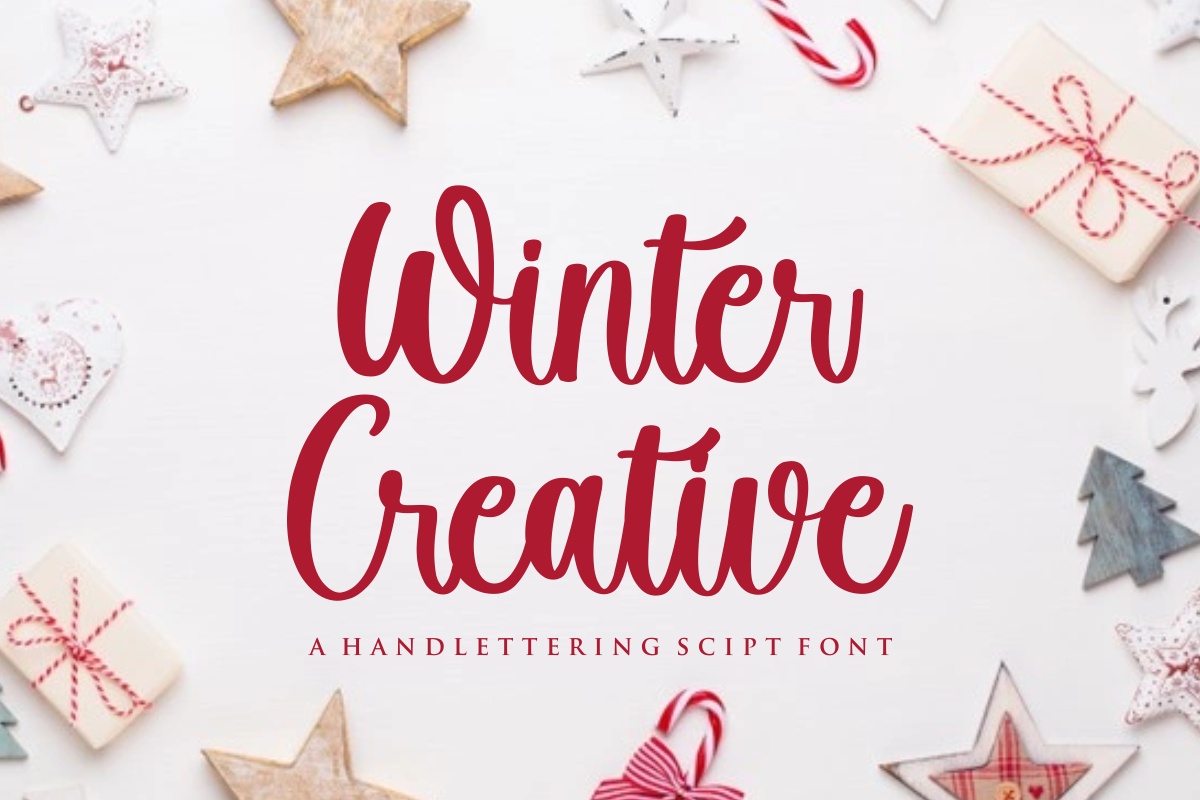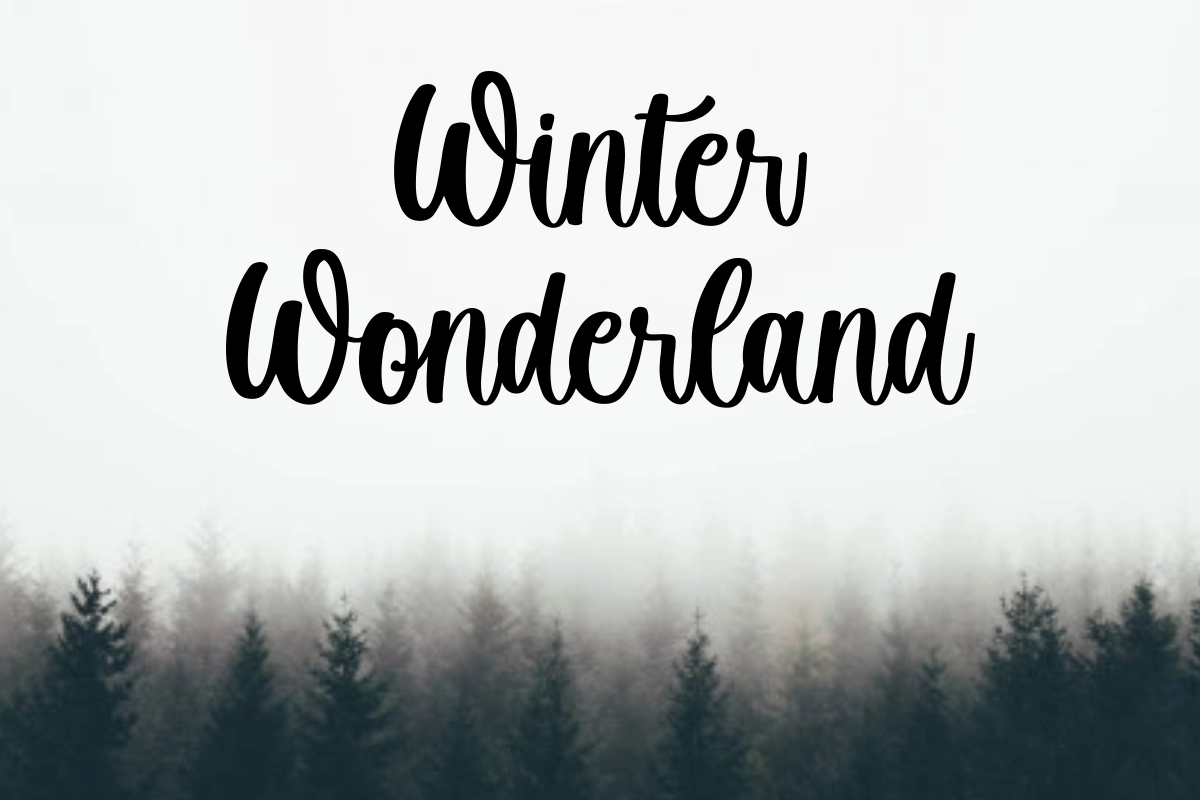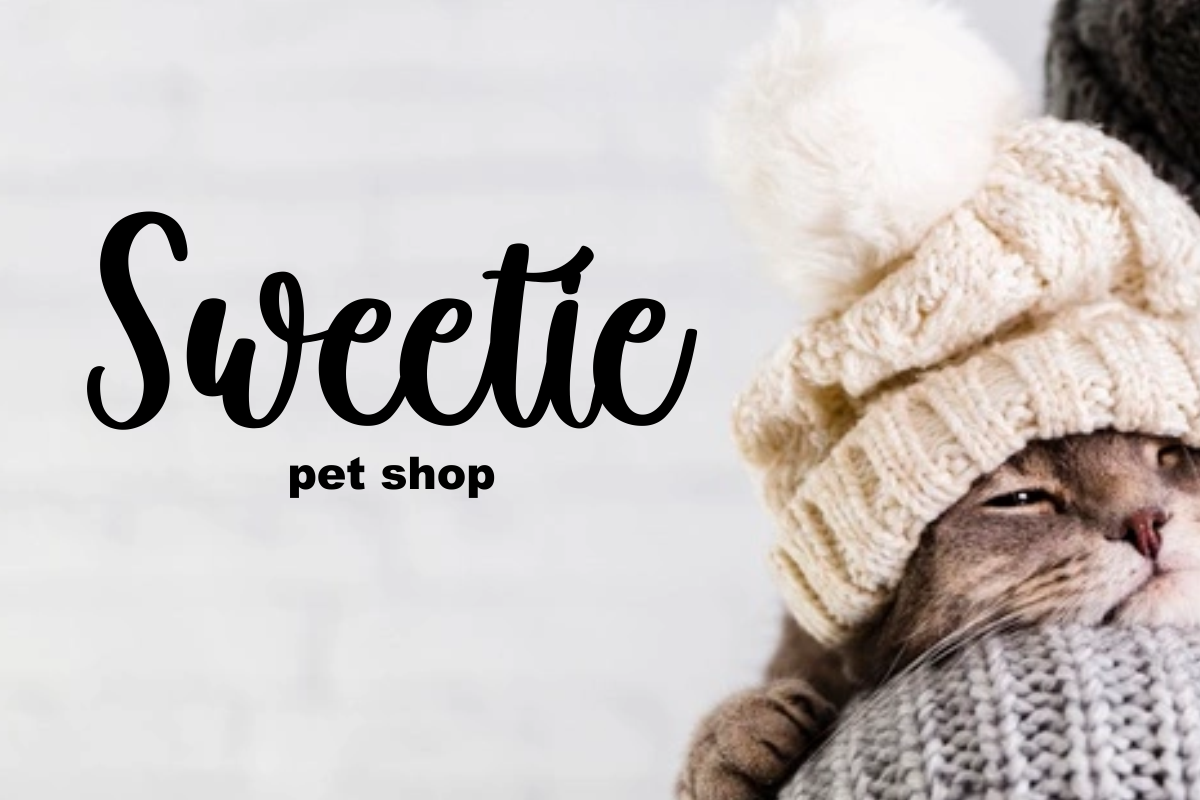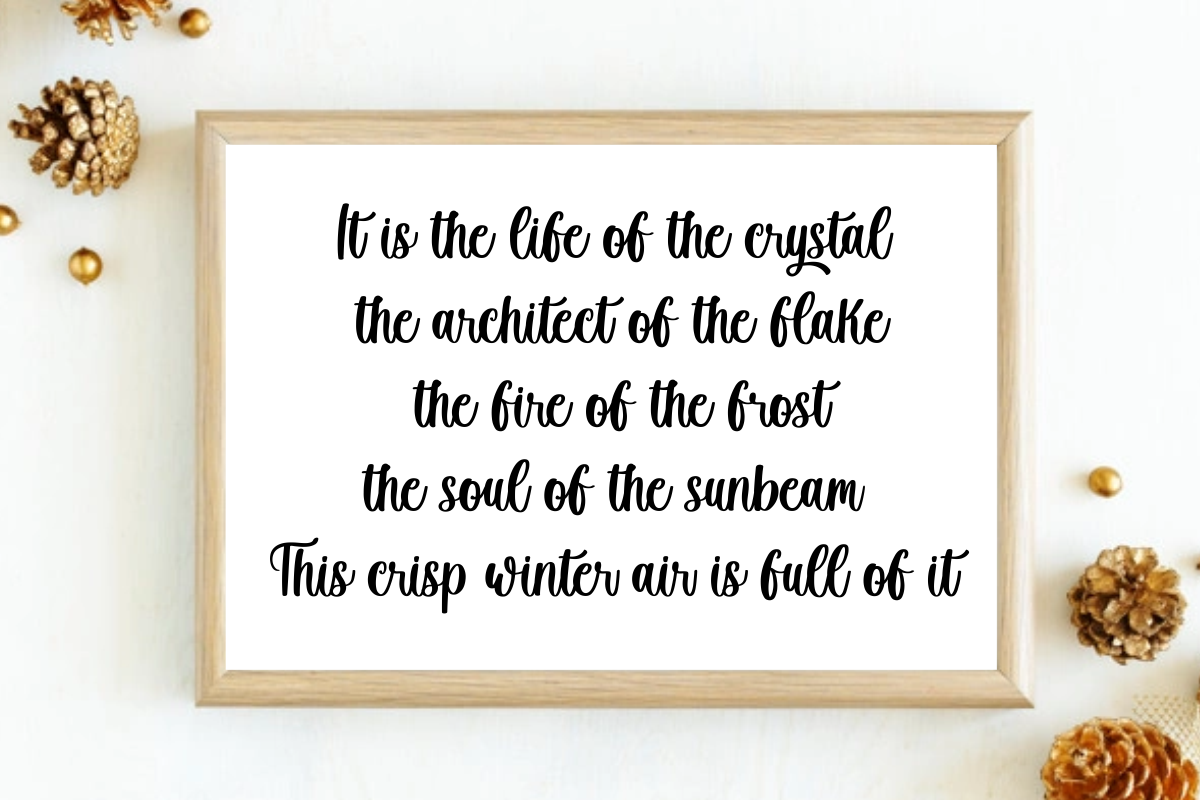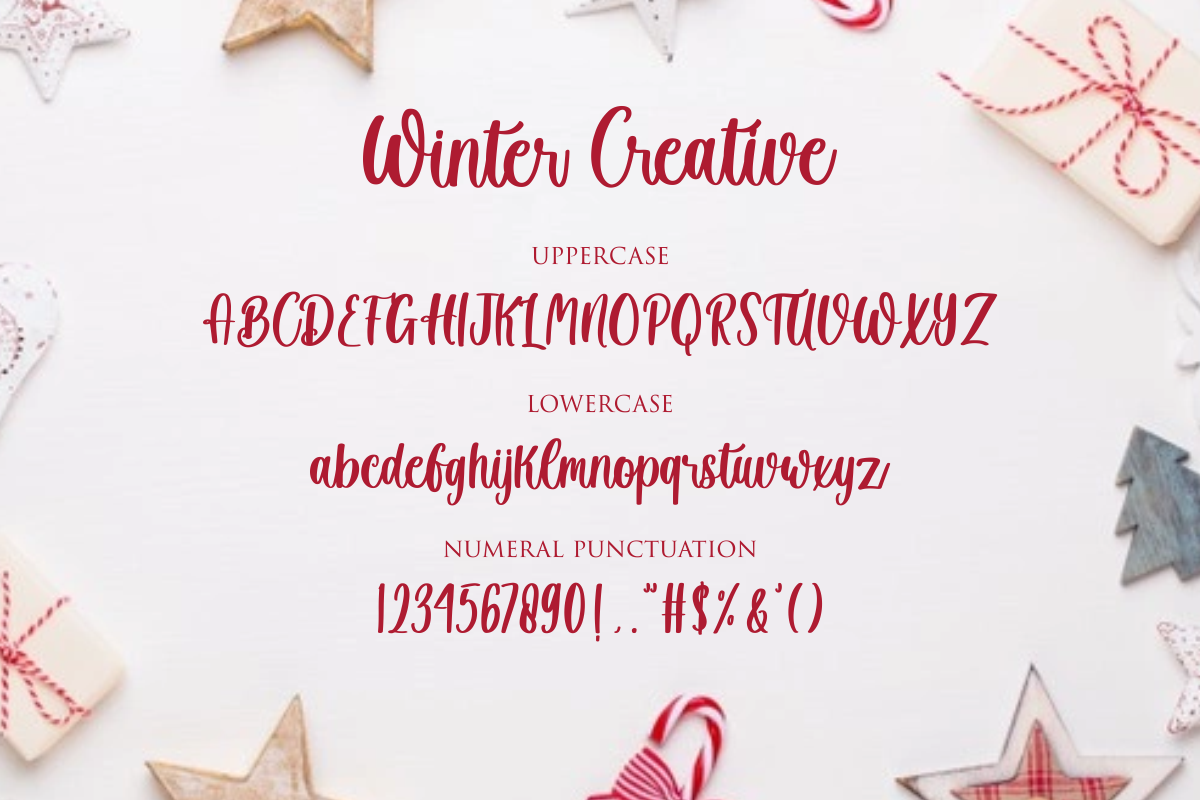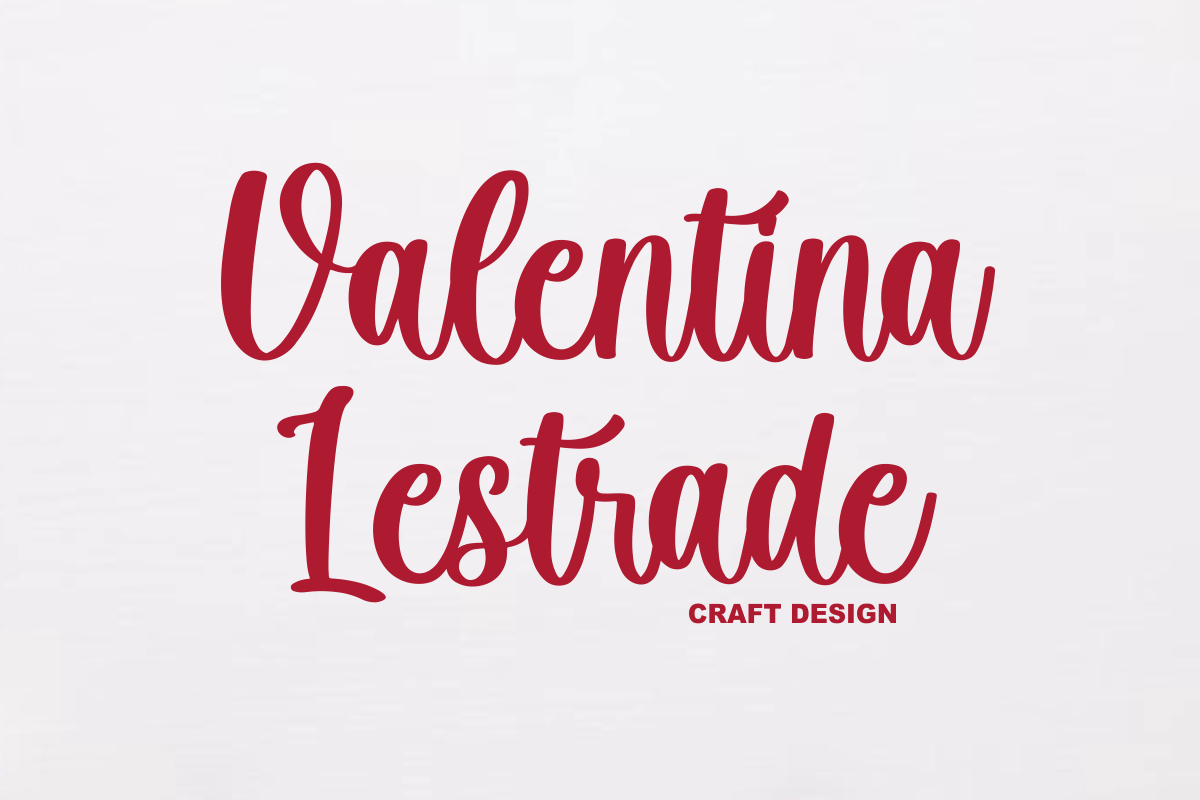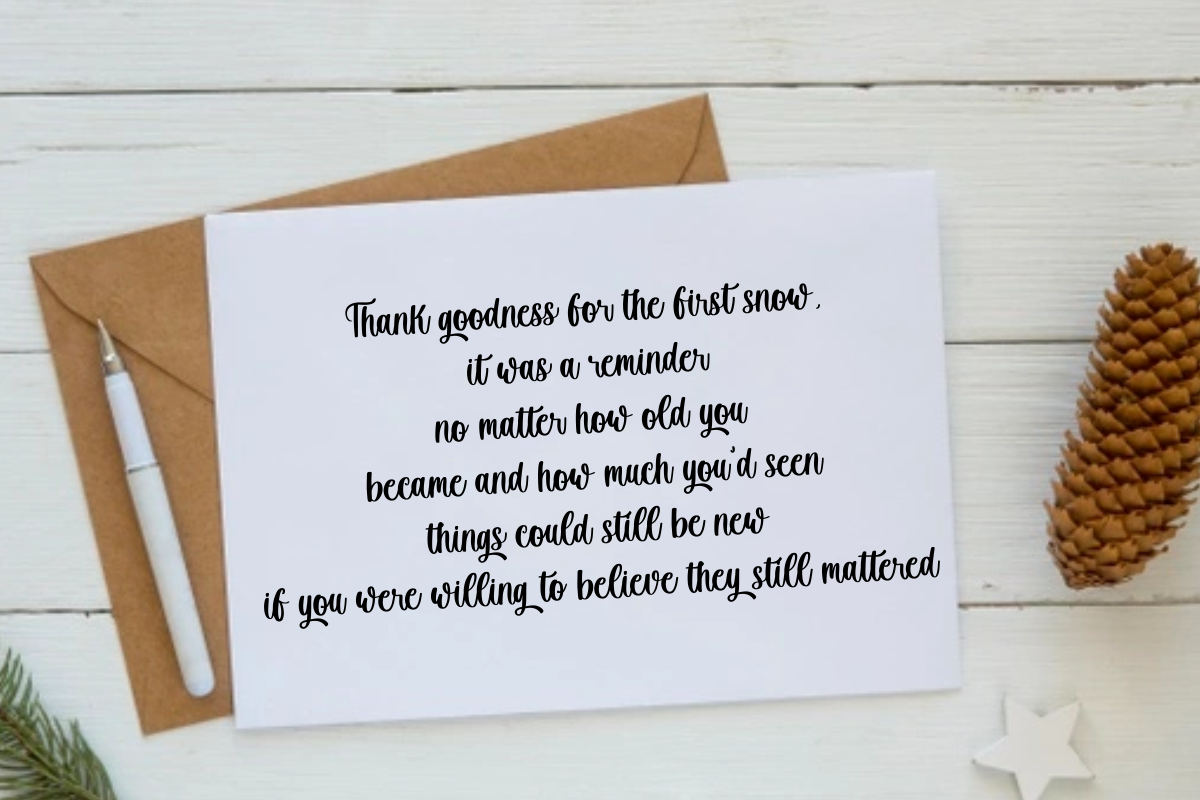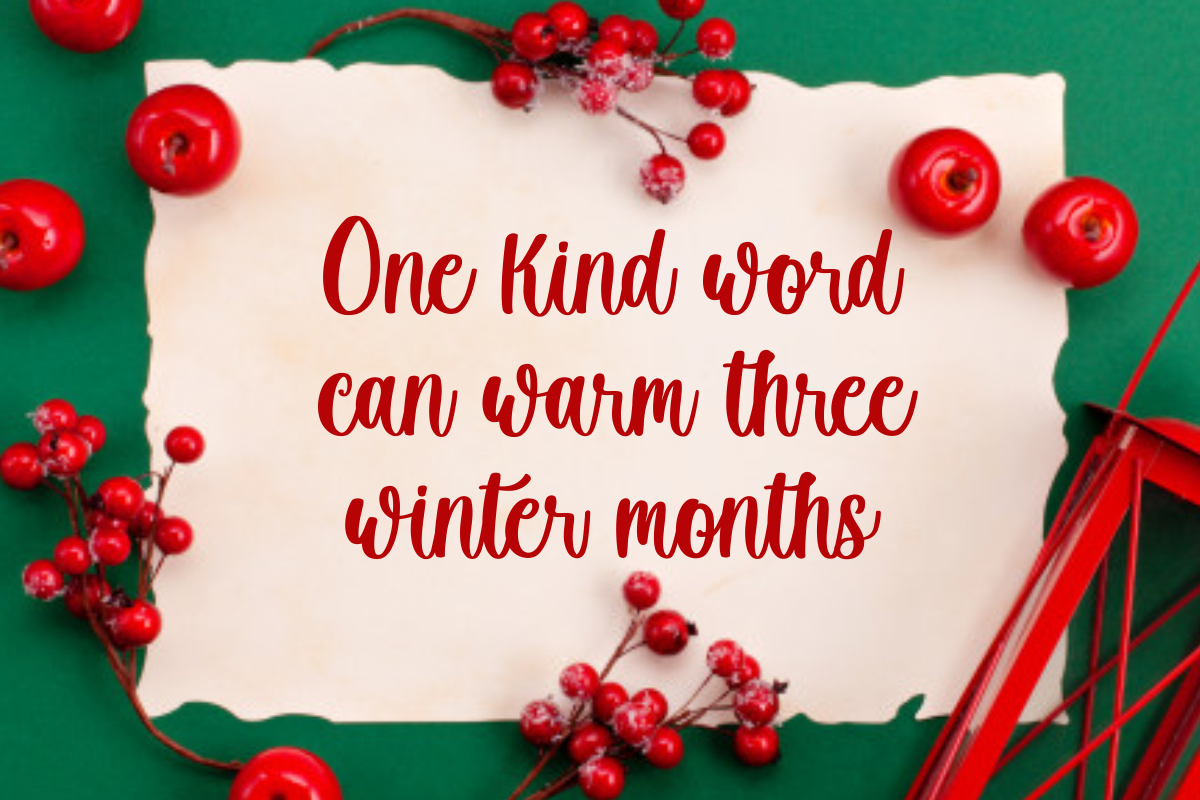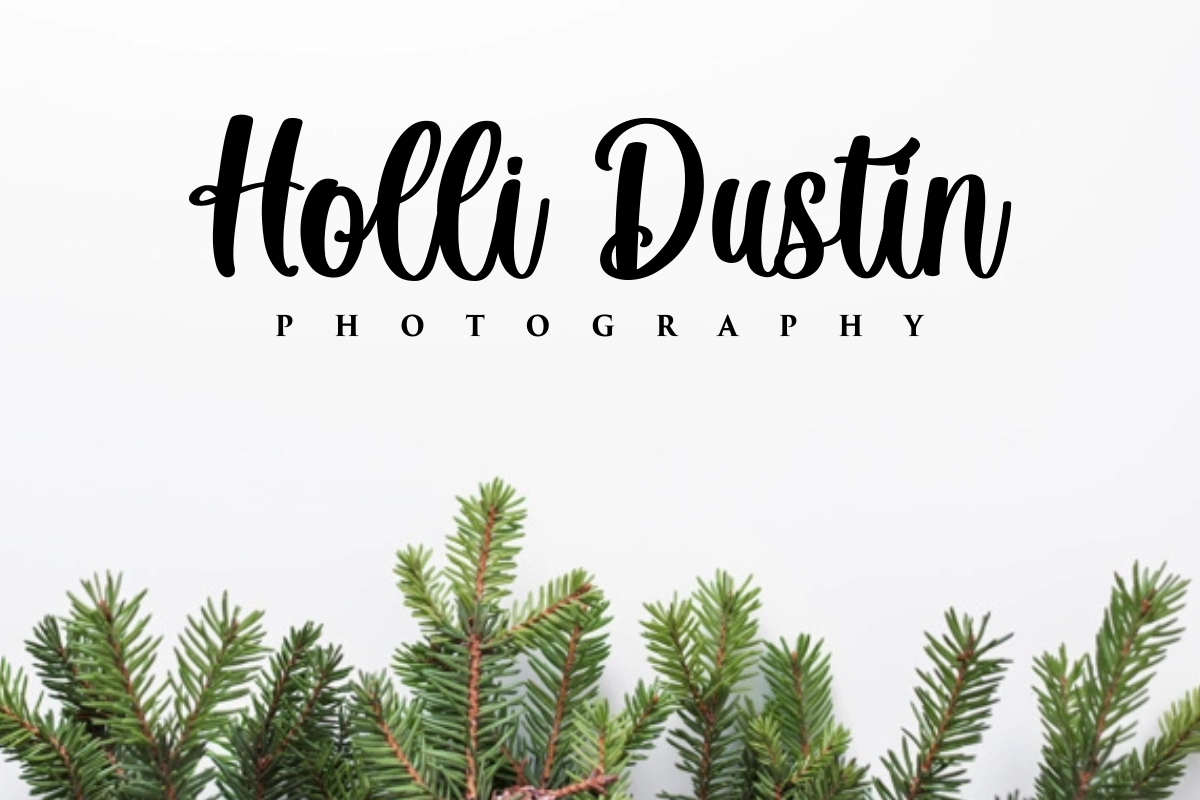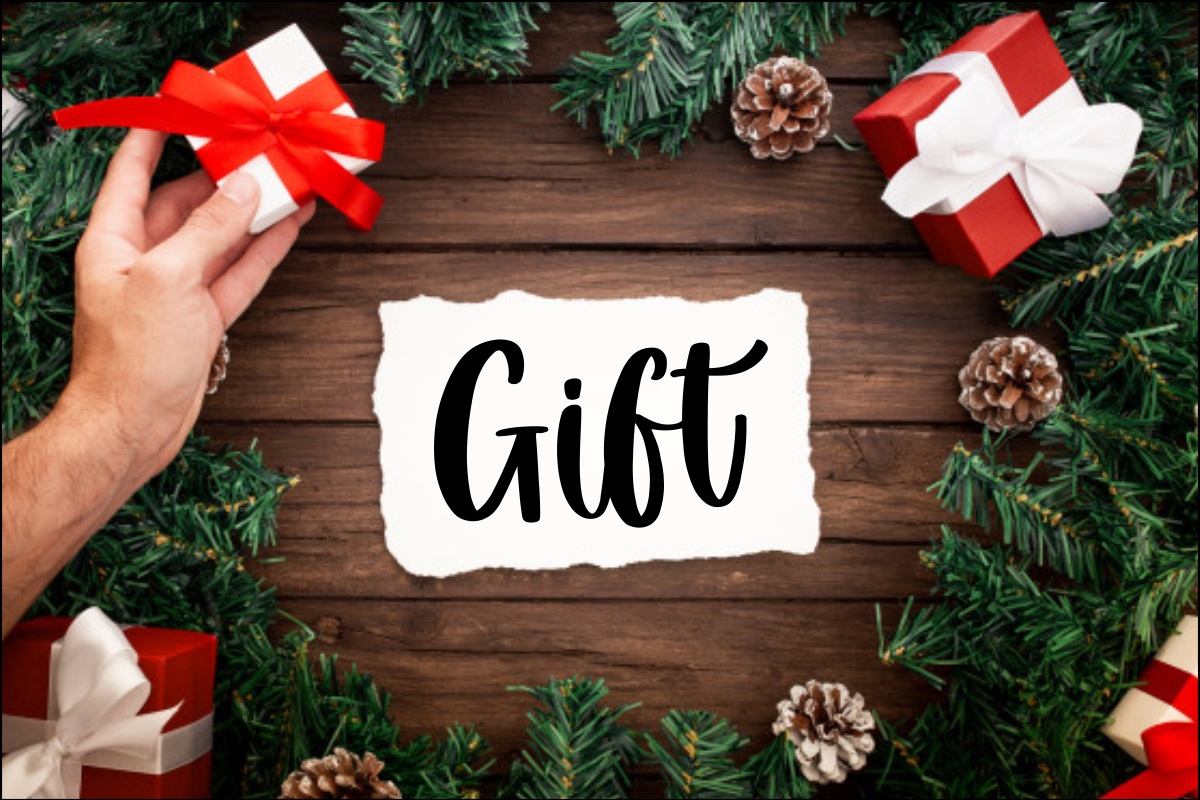
Winter Creative – Script Font
Winter Creative – Font is a new stylish script font. It’s perfect for logo, branding, title, social media posts, advertisements, product packaging, product designs, label, photography, watermark, special event, magazine, web design, etc.
Winter Creative ( Uppercase, Lowercase )
Middle Swashes